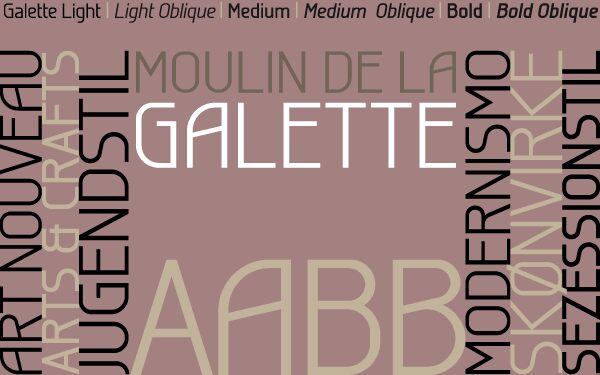
Galette by Jan Schmoeger of Paragraph is a free geometric sans serif with slim, even strokes and a spare, contemporary outline. Its rounded curves soften the firm vertical construction.
Technology and architecture are natural subjects for its precise, engineered forms. That restraint suits identity systems, exhibition posters, and product packaging with a modern industrial slant. In editorial design, it can give magazine headings and section markers a crisp structural thread.
Galette is a sans-serif font designed for print and on-screen display. The same layout can be used for printed material and online delivery without loss of quality or legibility. It includes extensive kerning and was designed for clear, uniform display on computer screens. It uses no overhangs, and the stroke thickness of uppercase and lowercase letters is identical, allowing smoother hinting and antialiasing at different point sizes and zoom levels.
The font includes alternative capital letters and accented characters for Western European, Eastern European, Baltic, and Turkish languages.